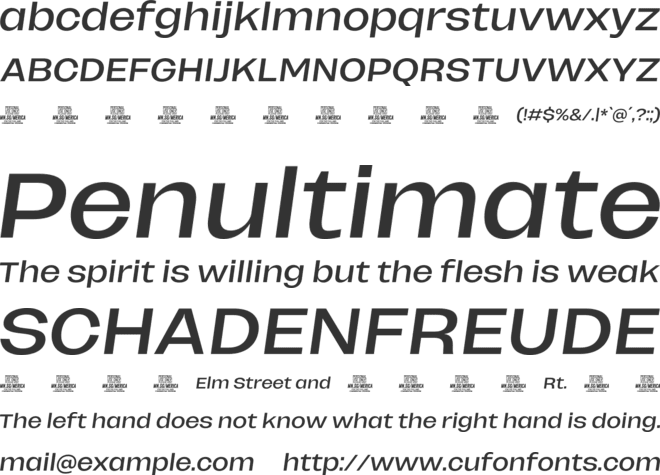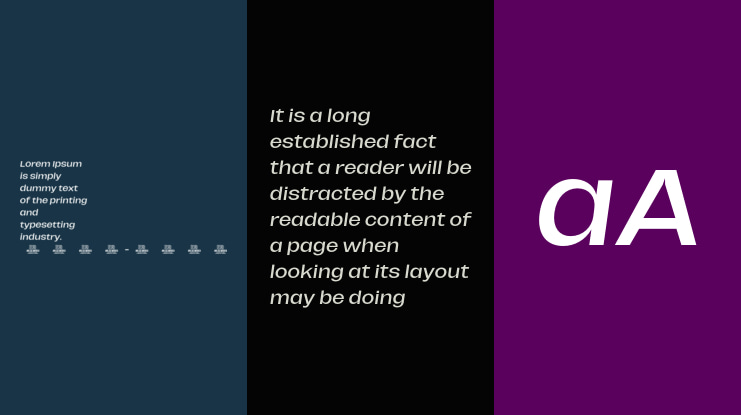
Merica Grotesk PERSONAL USE Font Family
NOTE: This font is for PERSONAL USE ONLY!To purchase a commercial license, visit:https://www.mansgreback.com/product/merica-groteskMerica Grotesk is a muscular sans-serif with an unapologetic presence. Its bold, geometric construction speaks with confidence, designed to command attention without losing its modern sharpness. The thick, even weight makes it ideal for impactful headlines, branding, and messages that must be seen as much as read.For questions, please visit https://mansgreback.com/faq